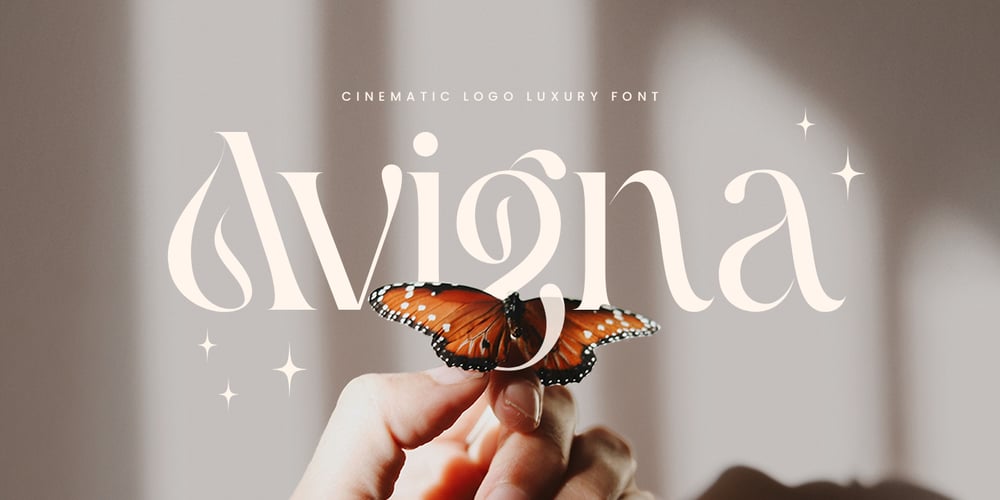
Avigna Font Family was designed by Zamroni Hamzah and published by Sensatype Studio. Avigna contains 2 styles and family package options. Introducing Avigna, a font that combines cinematic elegance with luxurious style, designed to elevate your logos and branding. Perfect for those seeking a sophisticated touch, Avigna ensures your designs exude class and refinement.The Story Behind Avigna:Avigna was inspired by the glitz and glamour of the cinematic world. Imagine the golden age of Hollywood, where every design element was crafted to captivate and leave a lasting impression. This font embodies that spirit, offering a blend of elegance and modern sophistication. Avigna is ideal for designers looking to create luxurious and memorable branding materials that stand out.Avigna Font Features: Cinematic Elegance: Stylish and refined, perfect for luxurious and high-end designs. Modern Sophistication: Sleek lines and elegant curves that convey a sense of exclusivity. Versatile Usage: Ideal for logos, branding, film posters, and elegant stationery. Multiple Formats: Available in 4 formats for all your design needs. High Legibility: Clear and sharp, ensuring your message is communicated effectively. Refined Characters: Unique and stylish letterforms that add a touch of glamour to your designs. Inspirational Previews: Includes sample designs to ignite your creativity. Perfect For: Luxury Branding: Create memorable and sophisticated logos for high-end brands and businesses. Film Posters: Design cinematic posters that capture the elegance of the silver screen. Elegant Stationery: Develop stylish business cards, letterheads, and office stationery. Marketing Materials: Enhance brochures, flyers, and advertisements with a touch of luxury. With Avigna, your designs will capture the essence of cinematic luxury and elegance. Whether you’re creating logos, branding materials, or film posters, Avigna provides the perfect blend of style and sophistication. Elevate your design projects with Avigna and make a lasting impression with every piece.